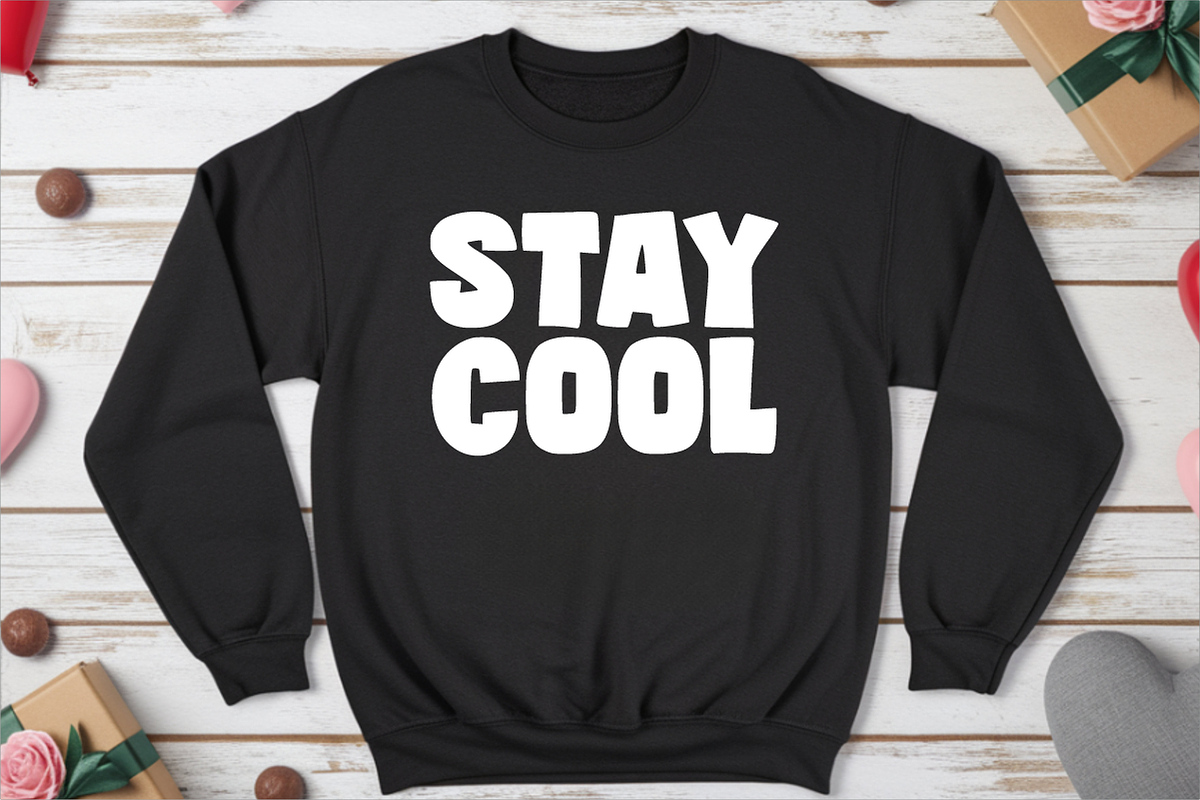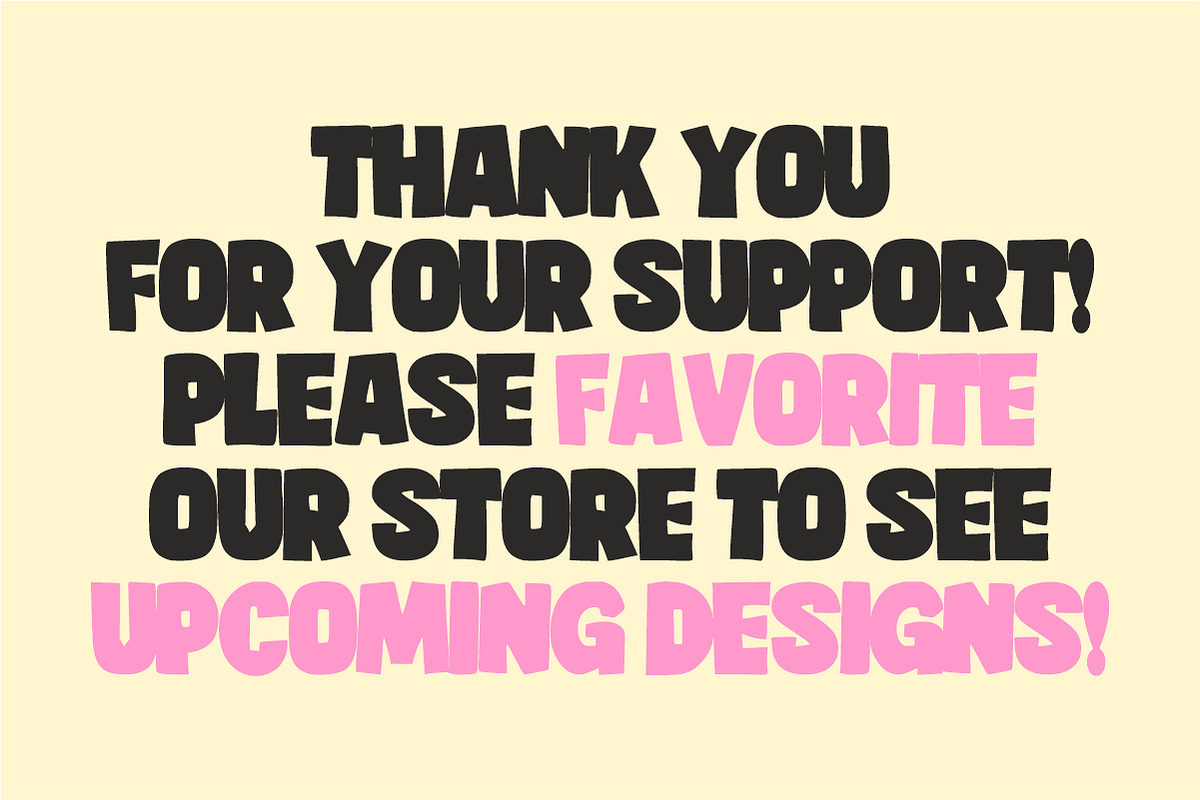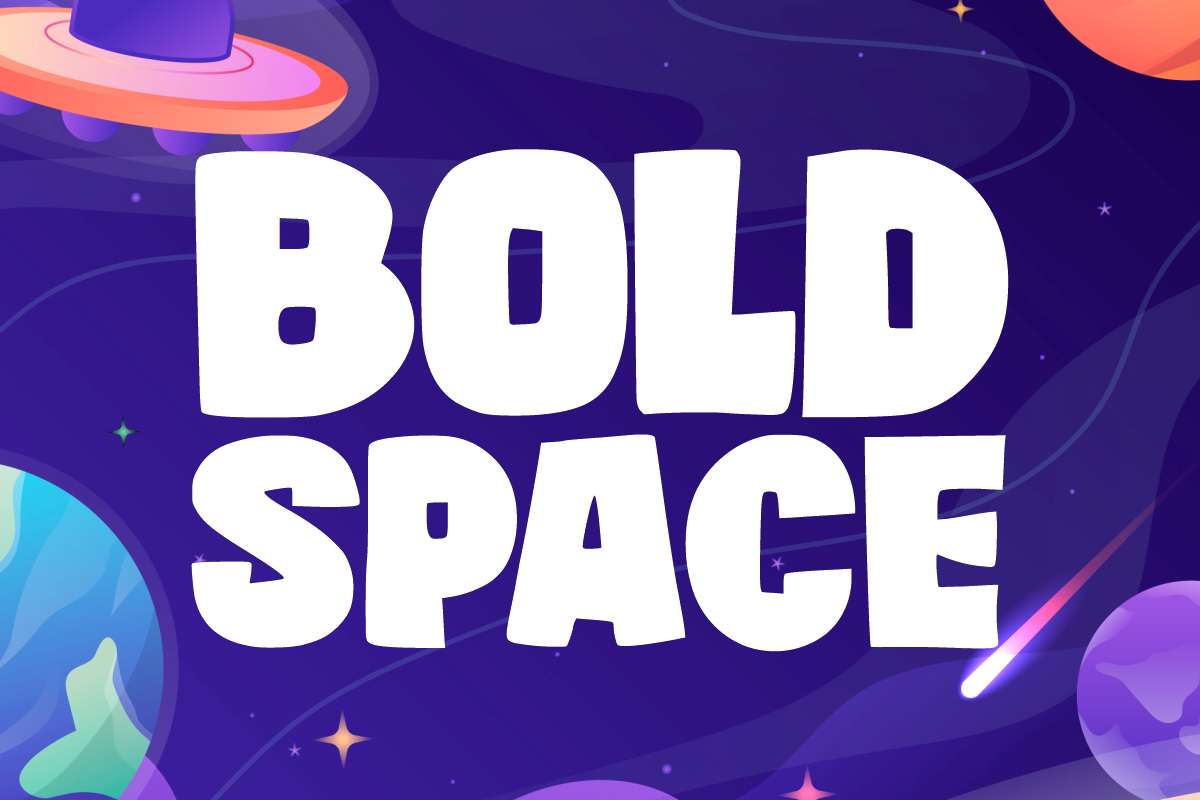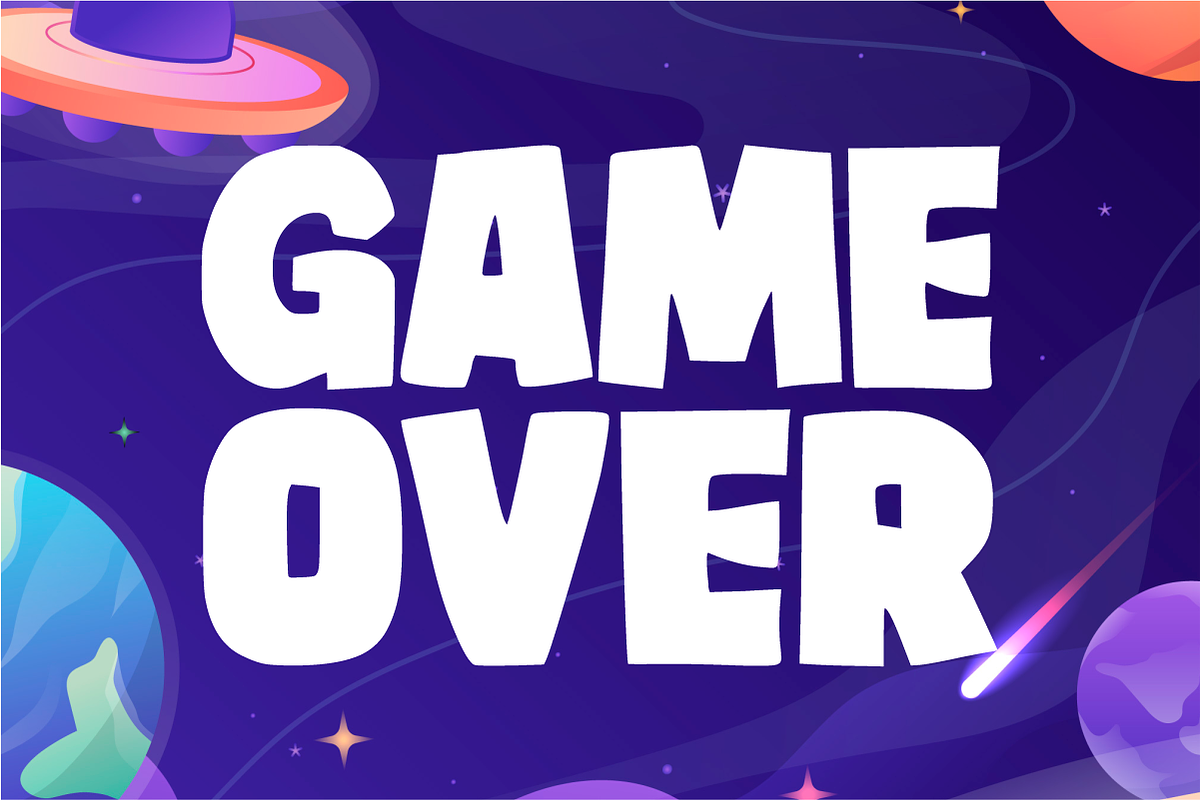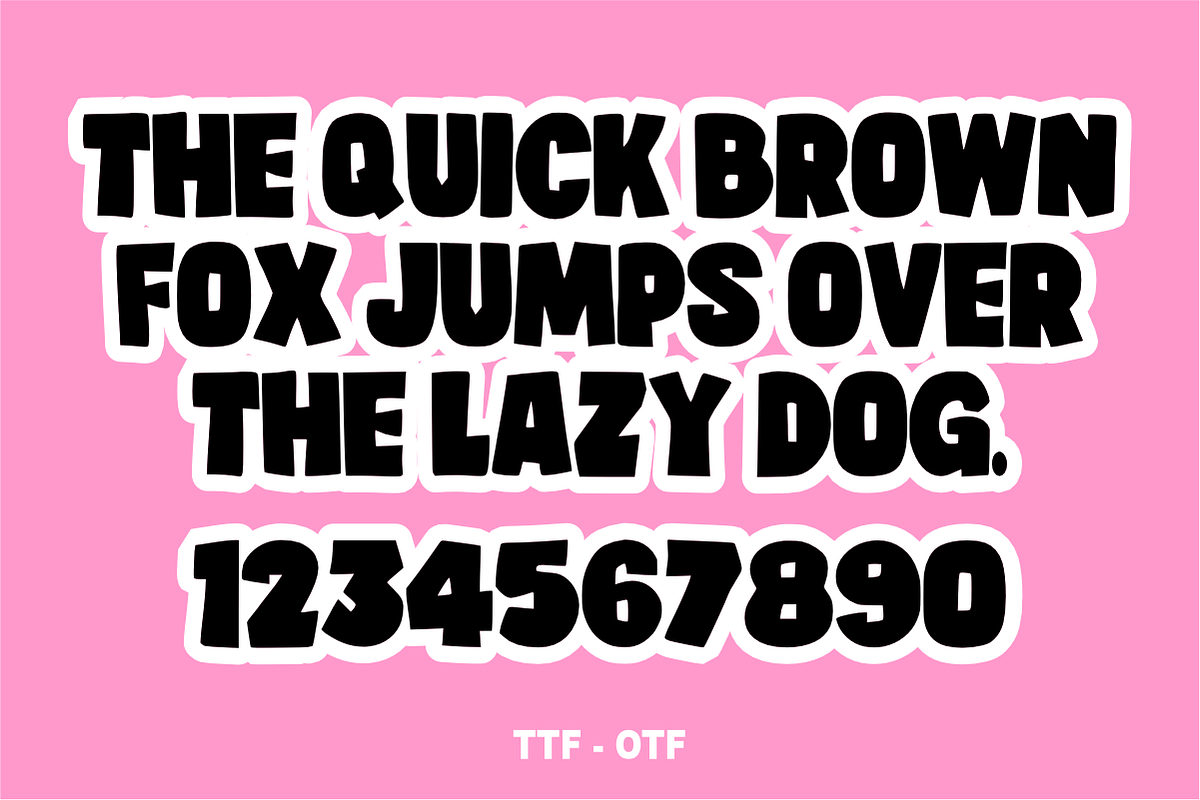
Bold Space - Playful Cartoon Font
Bold Space is a heavy, chunky display font featuring a fun cartoon style with solid, playful letterforms. Infused with an energetic and cosmic adventure vibe, this thick font is perfect for kids' outer-space themes, birthday party layouts, and high-impact headlines. Every character is cleanly vectorized to guarantee smooth, effortless weeding and cutting on Cricut and Silhouette machines.
Outer-space themed graphics, children's storybooks, and cartoon headers
Custom die-cut stickers, labels, and vibrant planner decals
Kids' apparel, astronaut-themed shirts, and playful merchandise
Classroom decorations, school posters, and teacher resources
Fun business branding, toy packaging, and cheerful logos